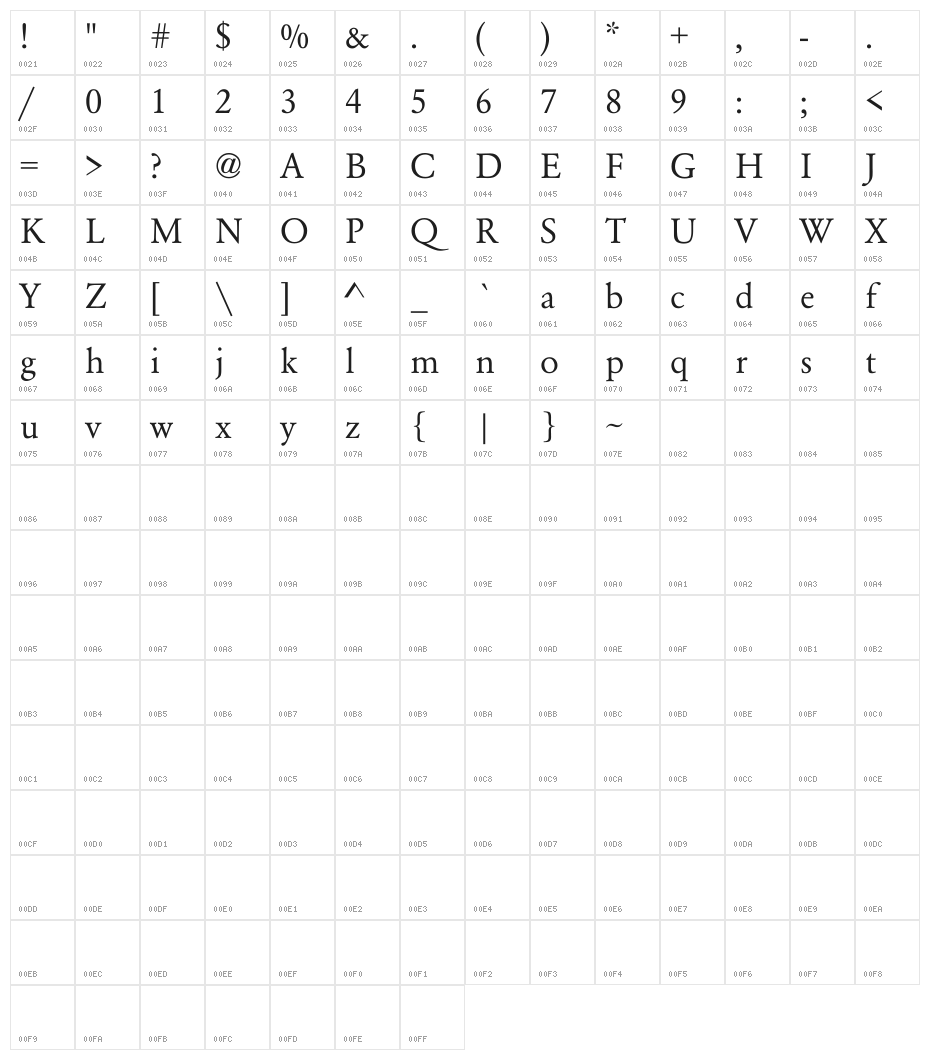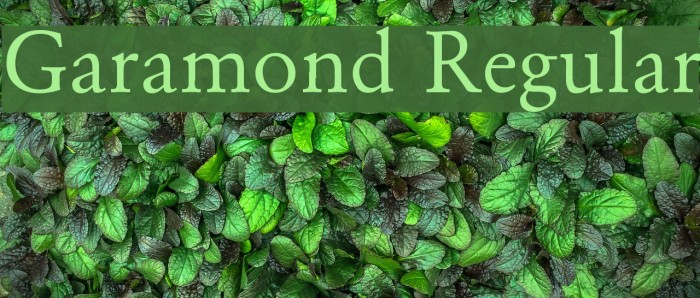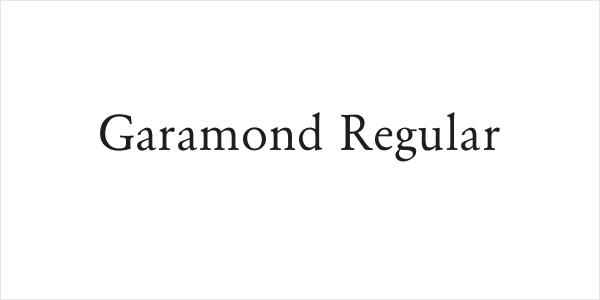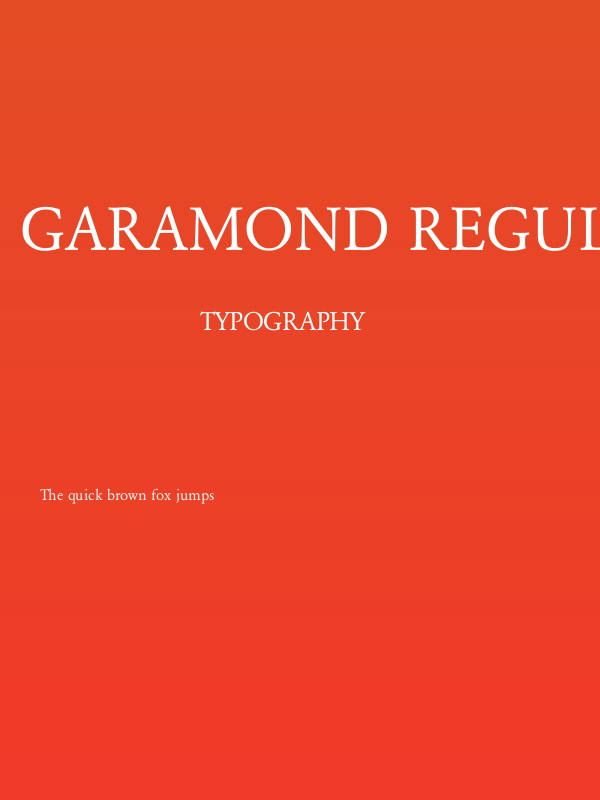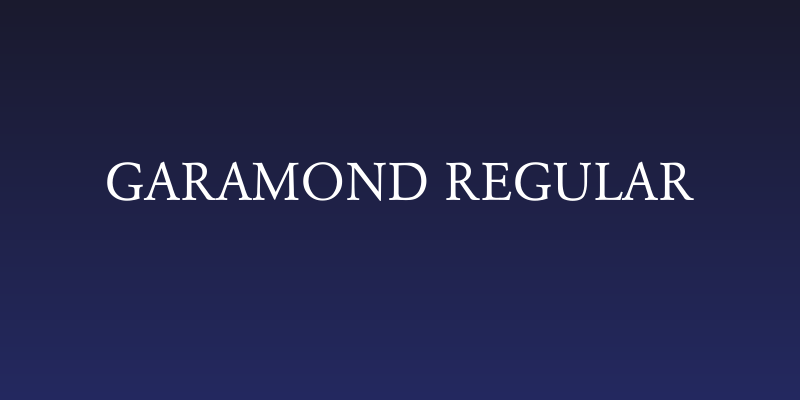
Garamond Regular Font
Garamond Regular Description
This font is a classic serif typeface known for its elegant and timeless design. It features smooth curves and a moderate contrast between thick and thin strokes, giving it a refined and sophisticated appearance. The serifs are well-defined and slightly bracketed, contributing to its readability and traditional aesthetic. The font maintains a harmonious balance between its letterforms, making it suitable for both body text and headings. Its historical roots and graceful style make it a popular choice for formal documents, books, and high-end branding.
Overall StyleClassic
Use CaseBody text, Headlines
Proposed ProjectsIdeal for book typesetting, formal invitations, and luxury branding.